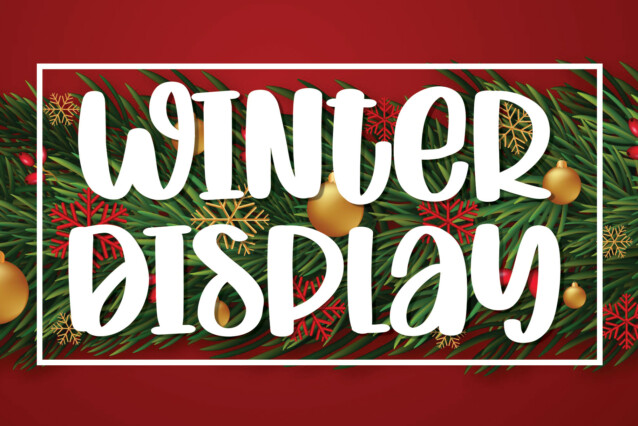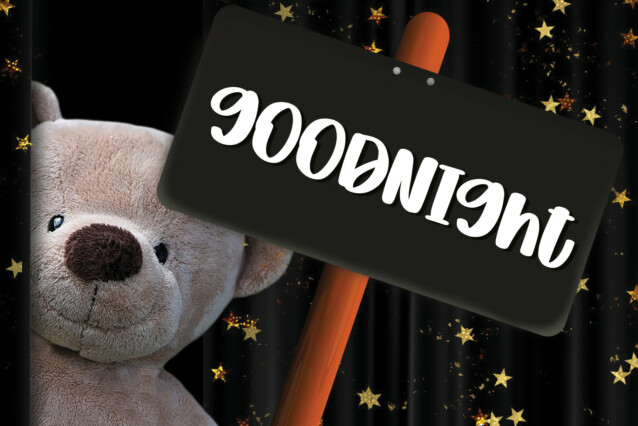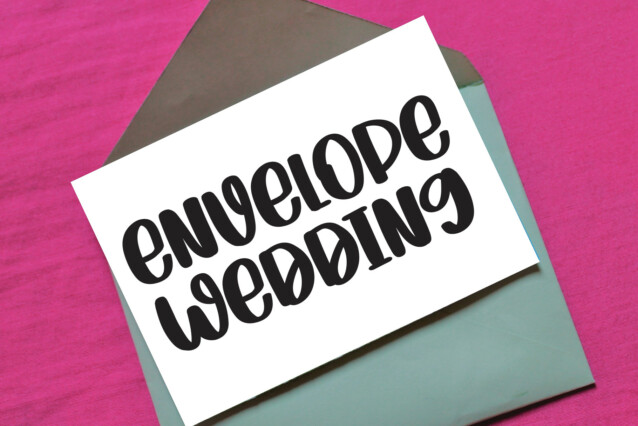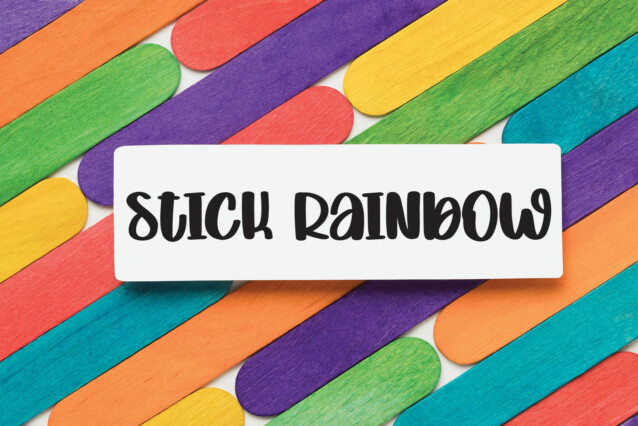
Winter Display Font
Winter Display Font is a fun and friendly handwritten font. Its cheerful and sweet personality is suitable for a wide range of crafty ideas!